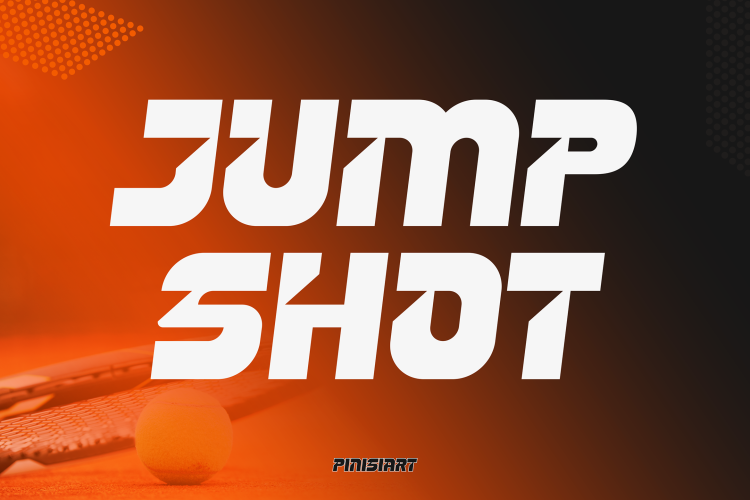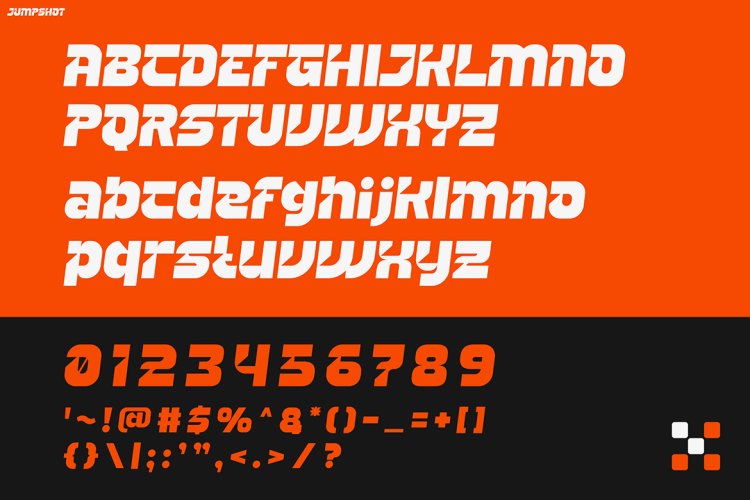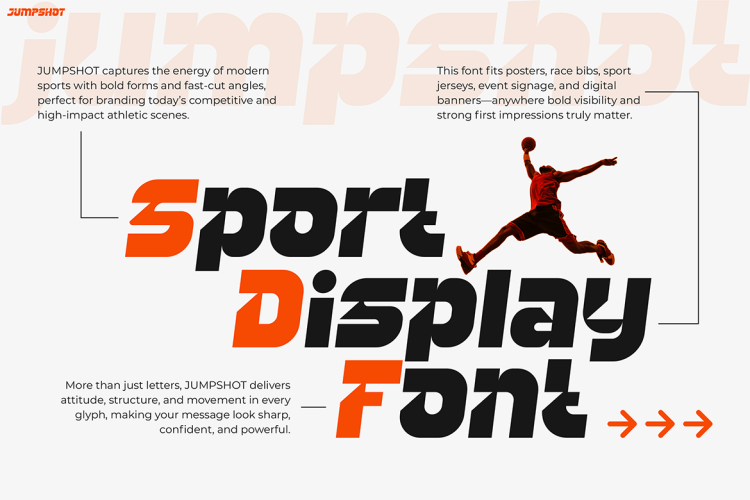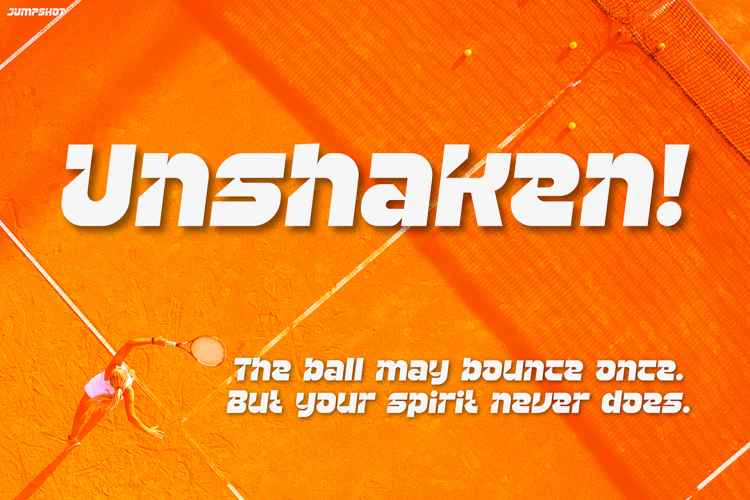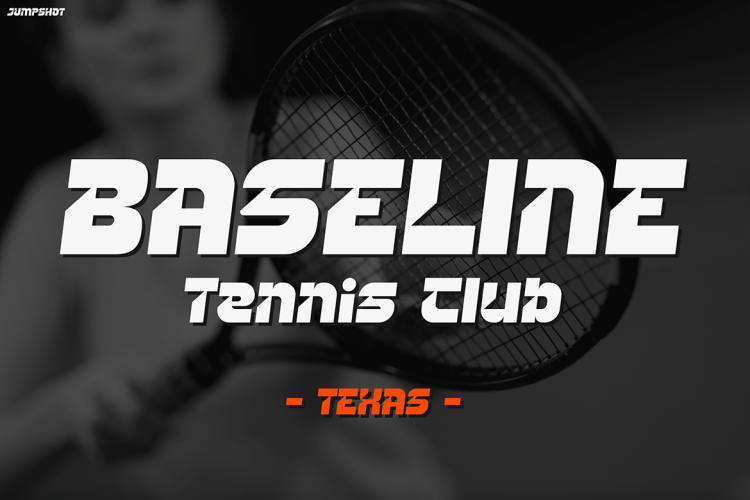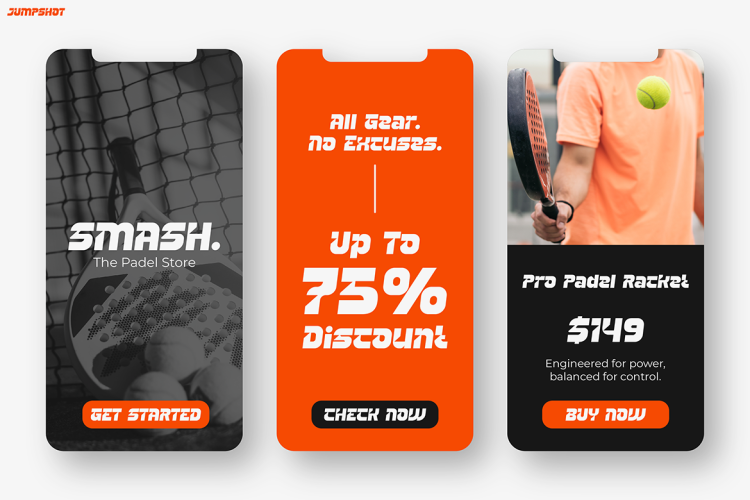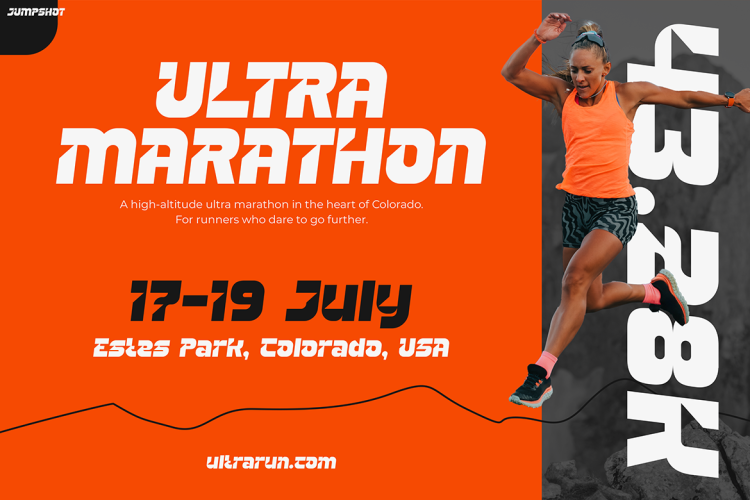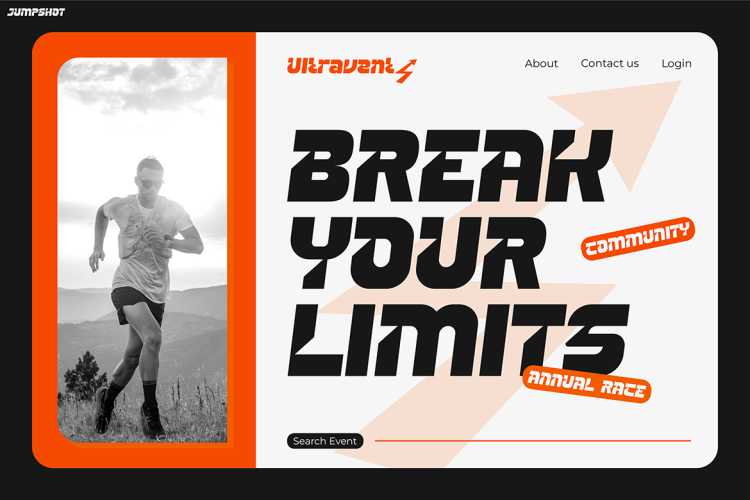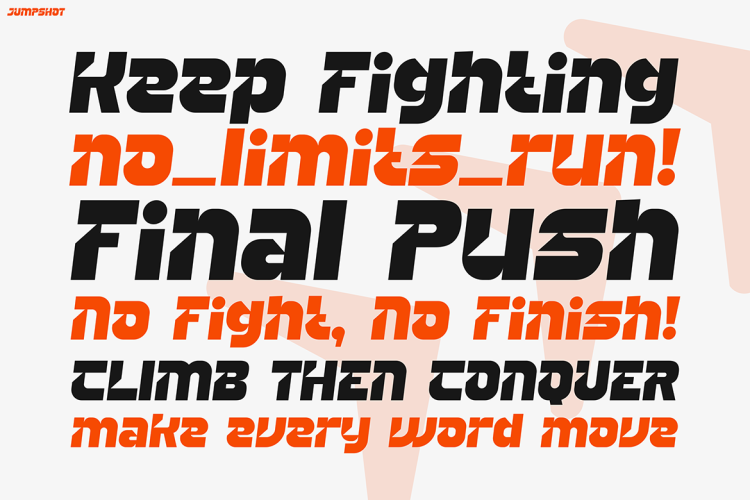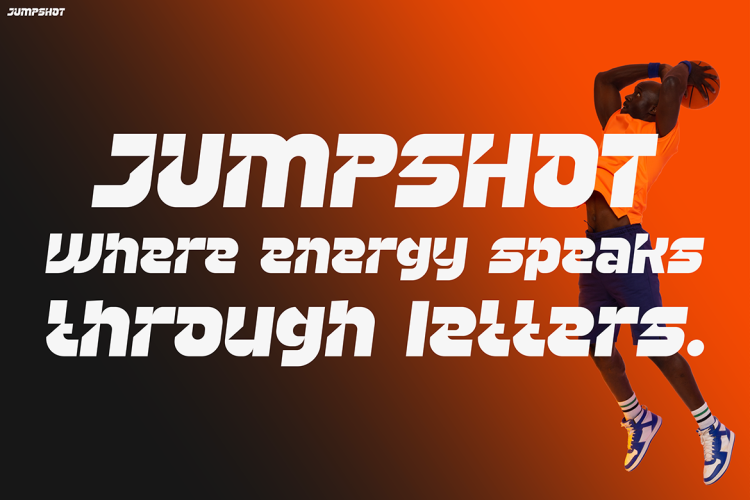
Sport Fonts JUMPSHOT delivers power, motion, and style in every bold stroke. With its strong geometric curves and futuristic structure, this typeface captures the thrilling pace of athleticism. From the very first glance, it commands attentionโmaking it ideal for projects that aim to inspire, energize, or motivate.
What truly sets JUMPSHOT apart is its ability to blend aesthetics with function. Not only does it offer a sharp, modern look, but it also maintains excellent readability across various formats. Whether you’re designing for digital platforms or print materials, this font keeps your message bold and impactful. Moreover, the playful, action-packed vibe in every character helps your text stand out, especially in competitive design environments like sports branding or event promotion.
As a result, JUMPSHOT doesnโt just look goodโit performs. It turns ordinary words into bold statements that move with energy and direction. So, if you’re aiming to create work that motivates, empowers, or drives action, this font gives your designs the perfect edge.
Who Should Use Sport Fonts JUMPSHOT
Sport Fonts JUMPSHOT is a go-to solution for designers, marketers, and creatives in the fitness, athletic, and performance-focused industries. For example, it works seamlessly for those creating marathon posters, sportswear packaging, or gym promotions. Likewise, fitness influencers, personal trainers, and YouTube creators can use this font to add dynamic flair to their visual branding.
Additionally, business owners building activewear or supplement brands will find JUMPSHOT especially useful when they want to deliver a confident and professional look. Thanks to its versatility, it fits across logos, headlines, product tags, and social media layouts without losing its bold identity.
Final Note
If youโre ready to fuel your visuals with unstoppable momentum, Sport Fonts JUMPSHOT is the typeface to trust. Its dynamic forms, aggressive flow, and high-impact energy will help you communicate passion, speed, and strength. Donโt just designโdominate. Add JUMPSHOT to your toolkit and elevate your visual game with every word.